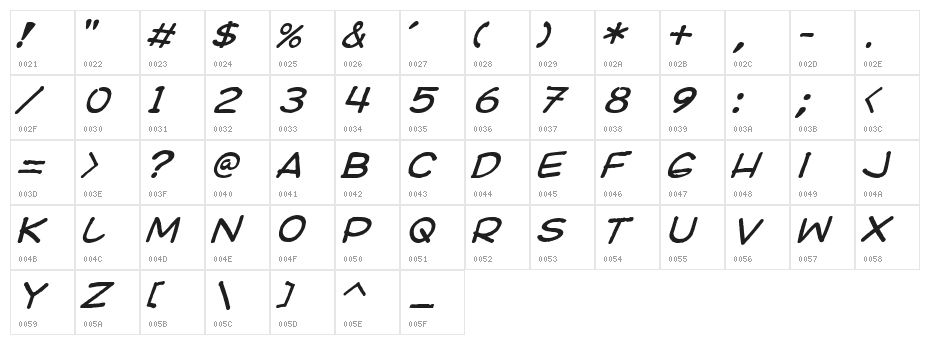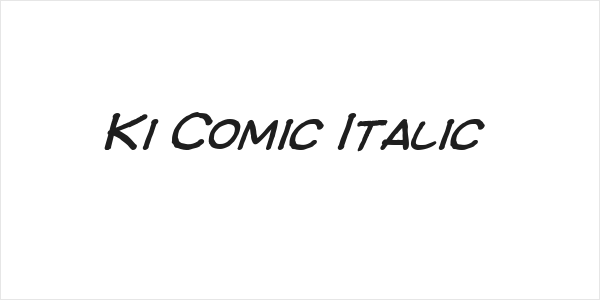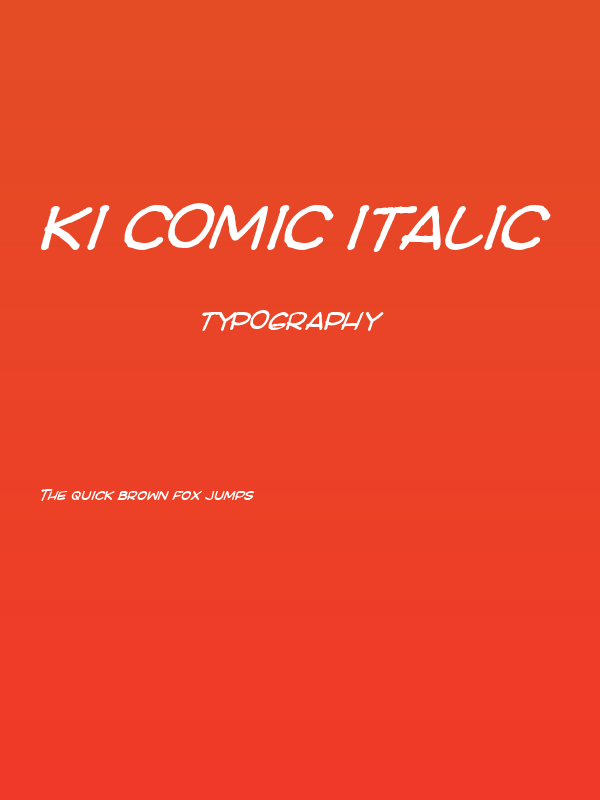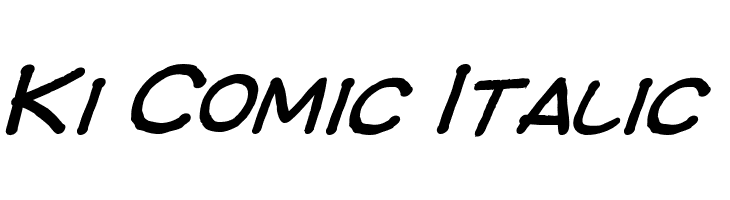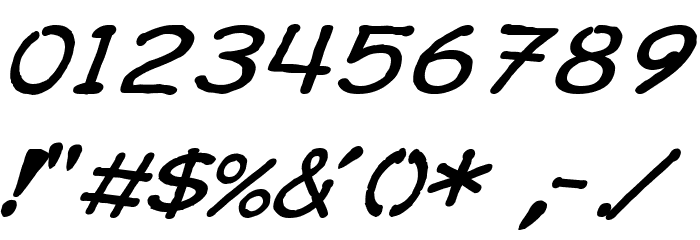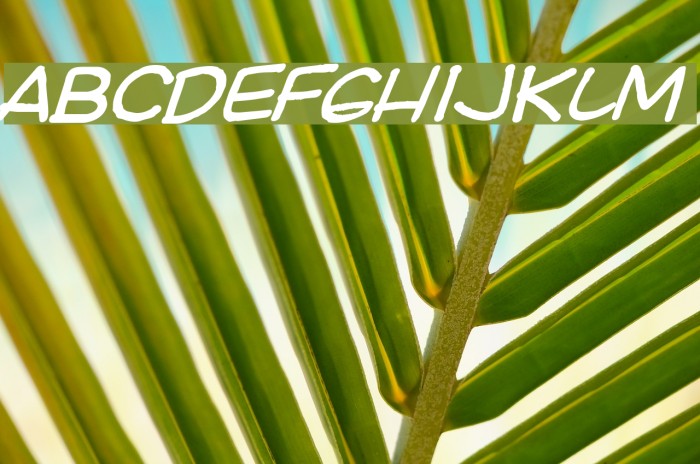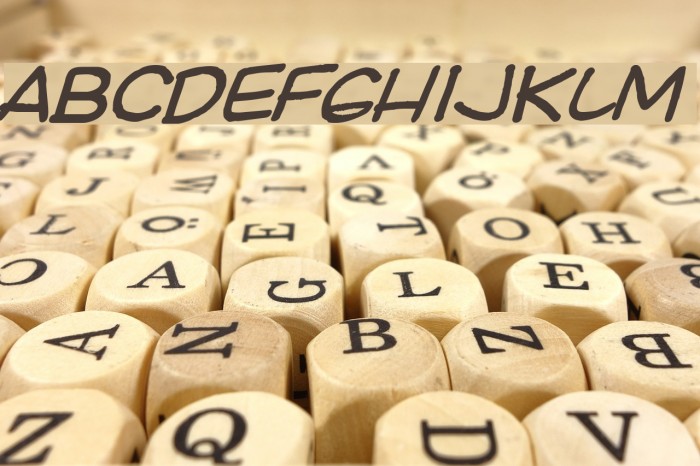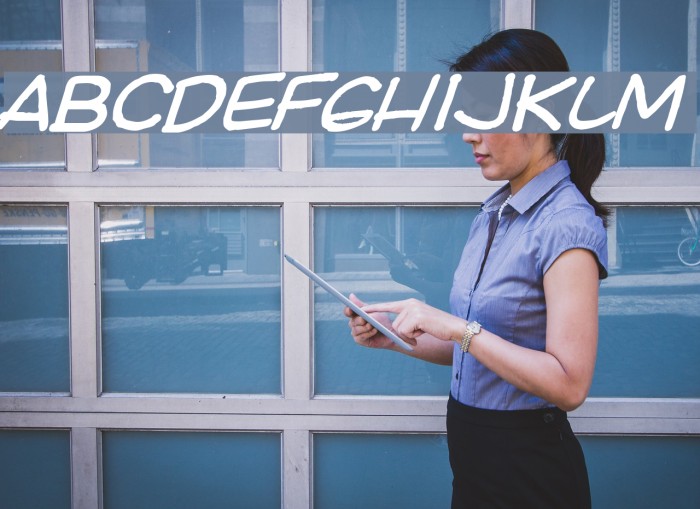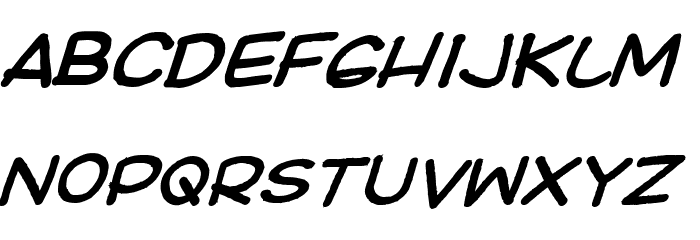
Ki Comic Italic Font
Ki Comic Italic Description
This playful and dynamic font features a handwritten style with a slight slant, giving it an italicized appearance. The characters are bold and rounded, exuding a casual and friendly vibe. The strokes are consistent in thickness, providing a uniform look across all characters. The font includes both uppercase and lowercase letters, numbers, and a variety of special characters. Its informal style makes it suitable for creative and fun projects, where a touch of personality is desired.
| Overall Style | Playful |
| Use Case | Headlines, Logos, Informal Text |
| Proposed Projects | Ideal for comic books, children's books, playful branding, and informal invitations. |